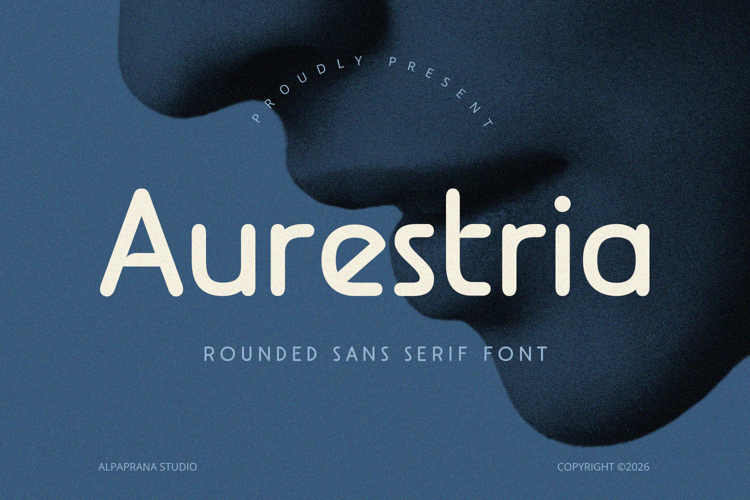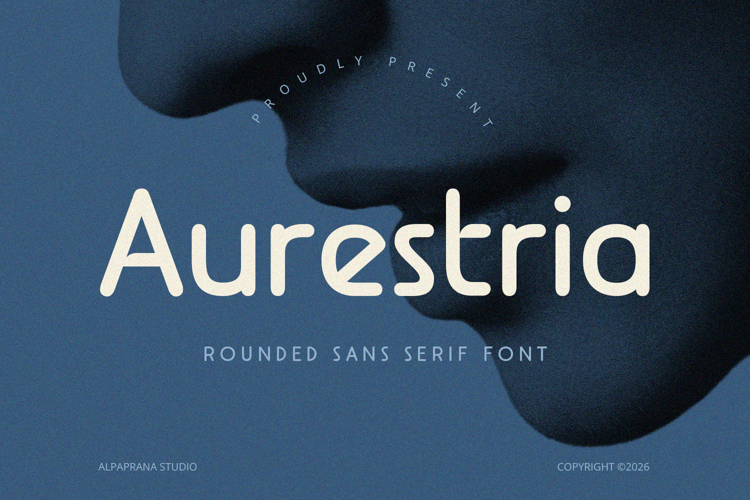
Aurestria is sans serif font with modern feels. It will be perfectly used for Branding, Logo Design, Lettering, Logotype, Clothing, Poster, magazine, packaging, posters, shopping bags, t-shirts, book covers, photography, special events and other design project.